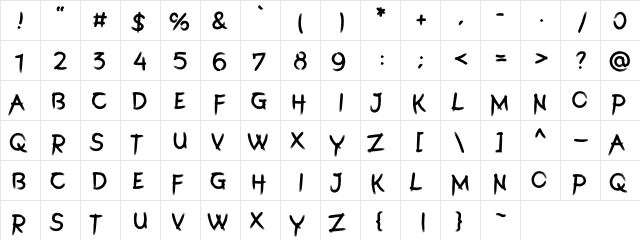
SomeBrush Bold Regular
| Designer | Ghielz |
Design Context for SomeBrush Bold Typeface
SomeBrush Bold flows with the natural rhythm of handwritten lettering, making it ideal for designs that call for warmth and personal expression. Its bold stroke weight gives it real presence on the page.
Font Pairing: Combine SomeBrush Bold with a simple geometric sans for maximum contrast — the tension between flowing curves and clean structure is a classic typographic pairing.
Pro Tip: Use SomeBrush Bold for short runs of text — names, titles, or taglines. Extended body copy in script faces tires the eye quickly.